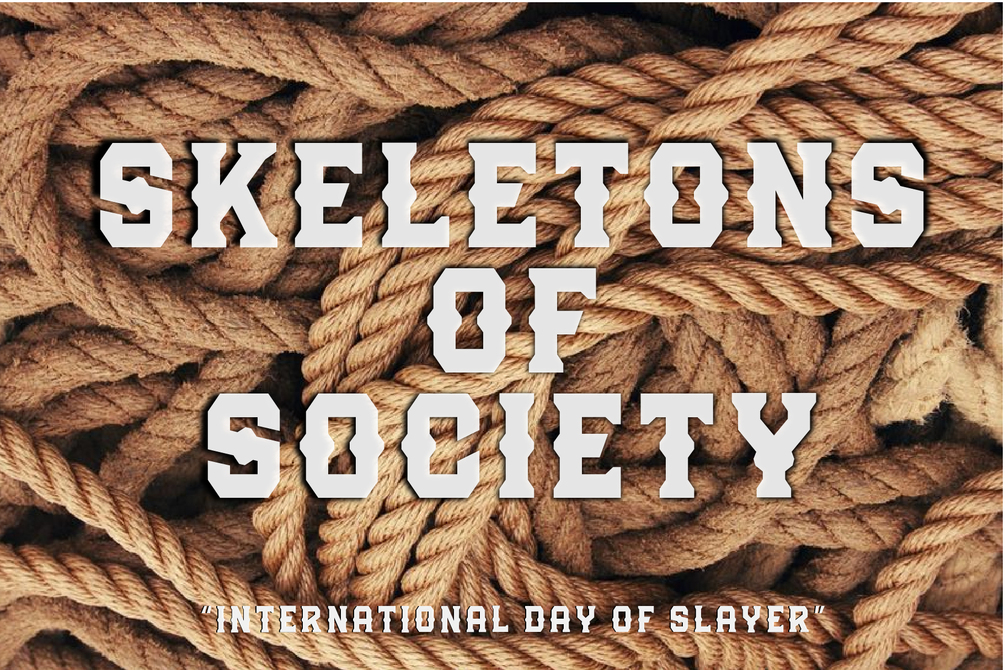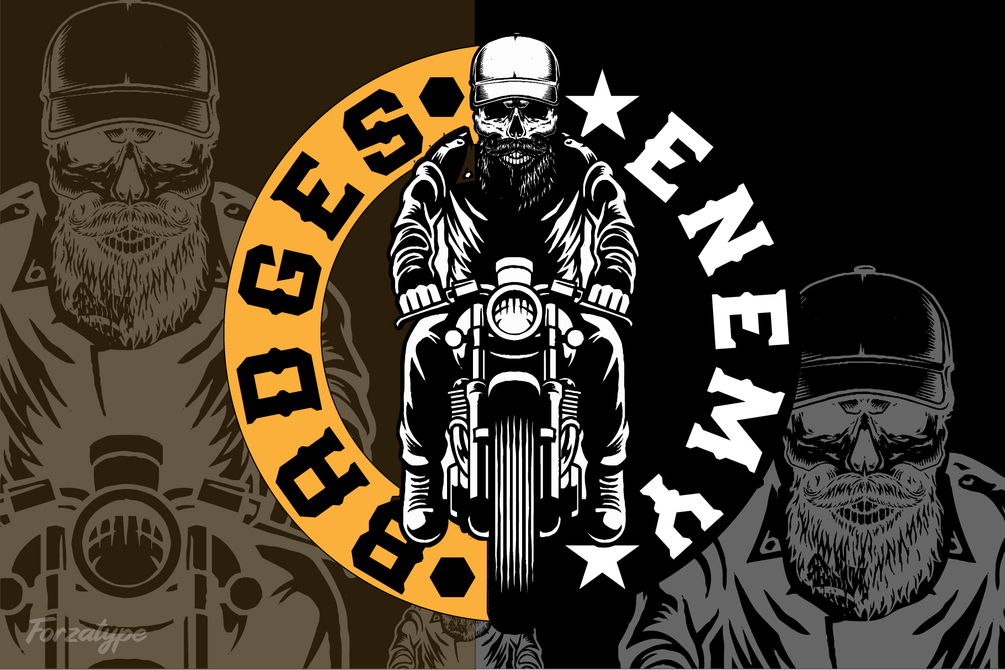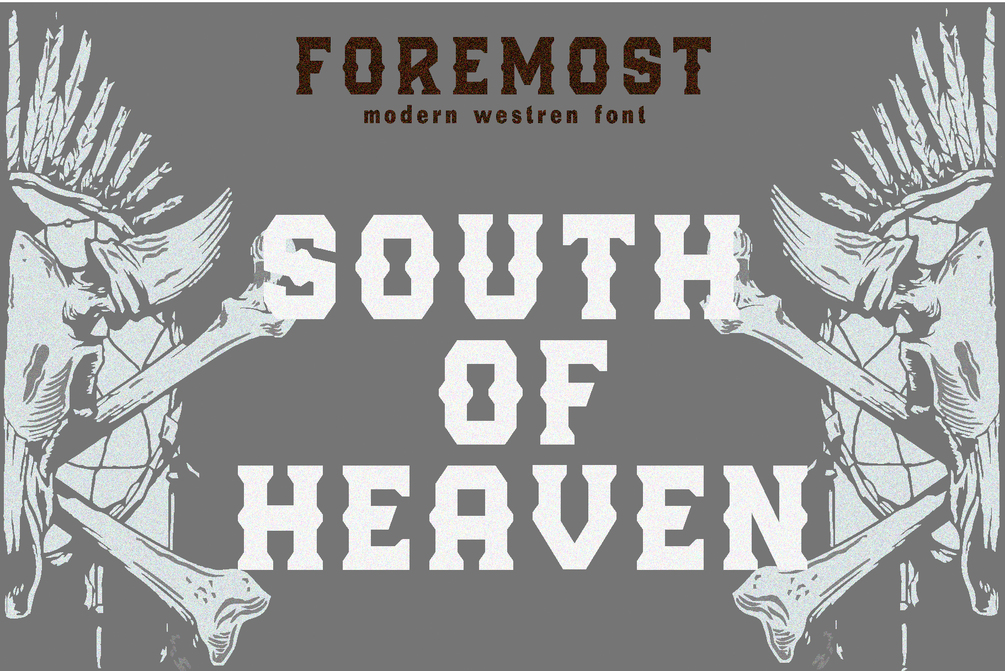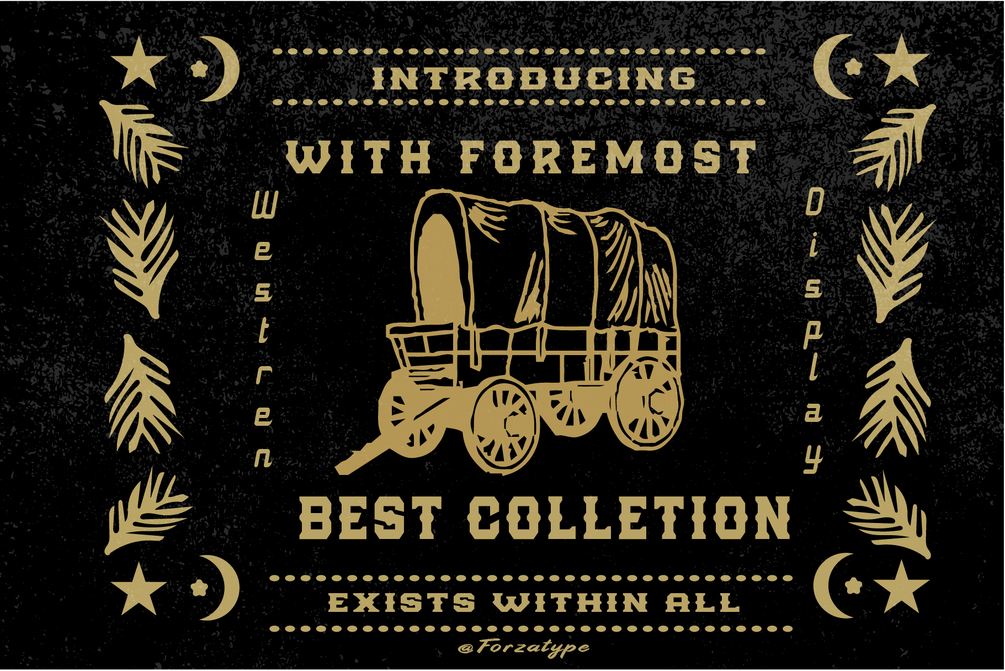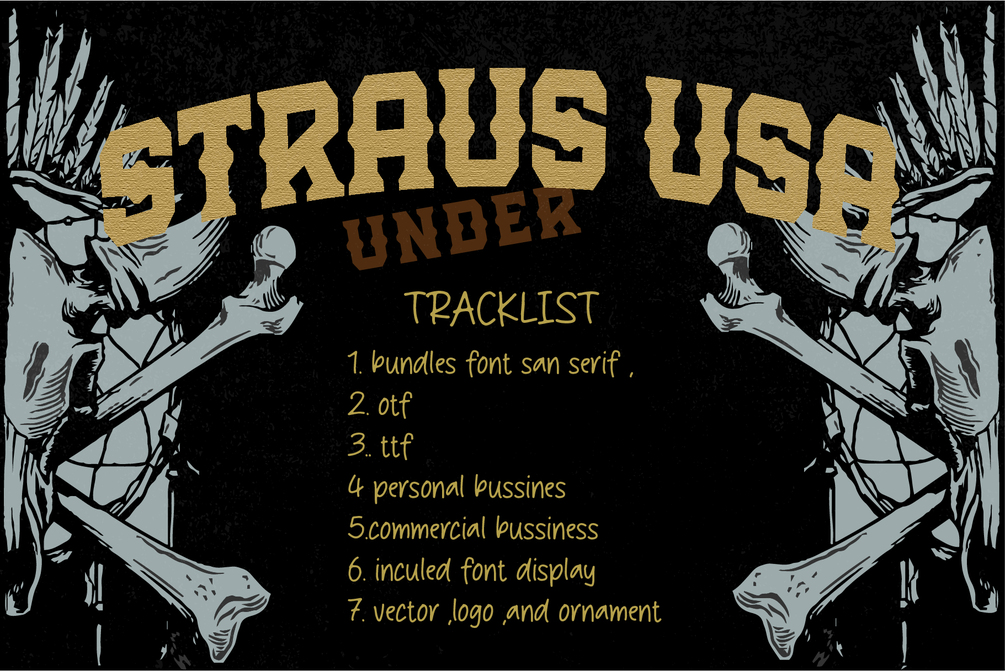
he description for the "Foremost" font western with a classic modern Western elegance and provided vector combinations With "Foremost," you'll bring an elegant and refined touch to every design project. Combining the grace of classic Western style with a distinctly modern twist, this font is the perfect choice for projects seeking a signature look. Every letter in "Foremost" exudes the strength and elegance of classic Western style. Its design blends traditional elements with modern flair, creating visuals that are captivating and striking. With the perfect balance of vintage style and modern sensibility, this font is suitable for a range of purposes, from t-shirt designs to posters to stylish branding. You can express your creativity limitlessly with "Foremost."As an added bonus, we provide complementary vector elements with a Western theme to enrich your designs further. With these vector combinations, you can create even more engaging and unique works.I hope this description helps you effectively promote the "Foremost" font and its Western-style vector bonuses to potential buyers seeking a blend of classic and modern aesthetics.